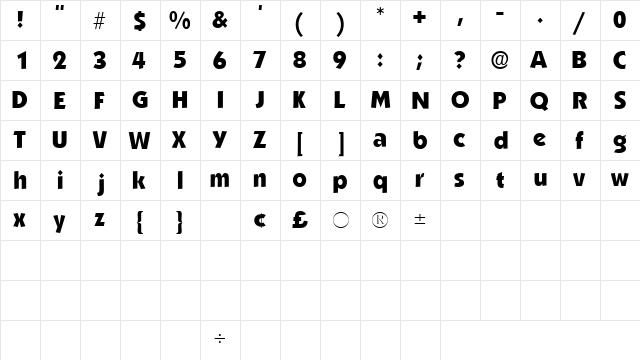
AnakeimSSK Regular
Design Context for AnakeimSSK Typeface
AnakeimSSK takes a measured approach to typography — its balanced proportions and neutral character make it a reliable workhorse for both digital and print work.